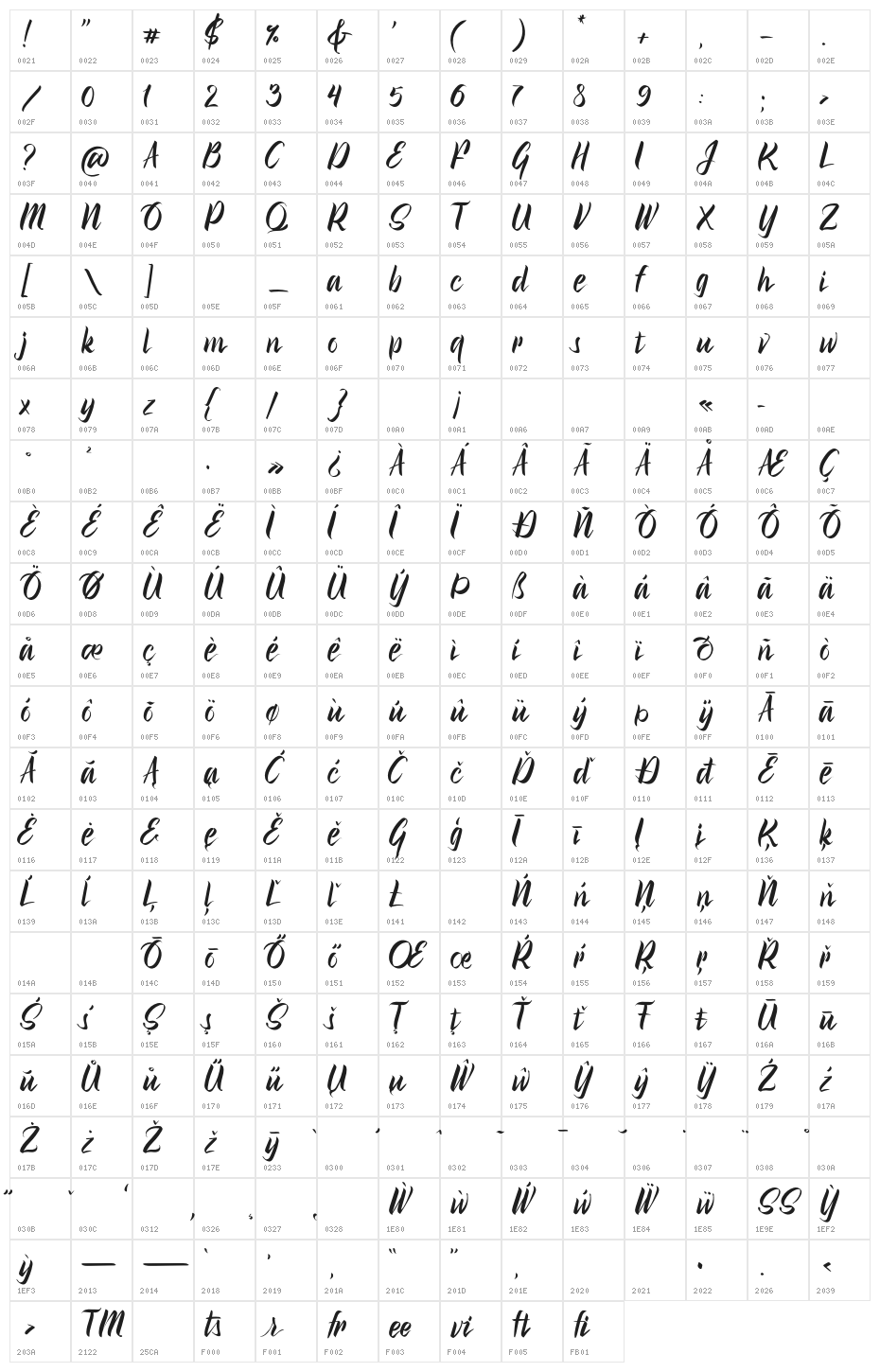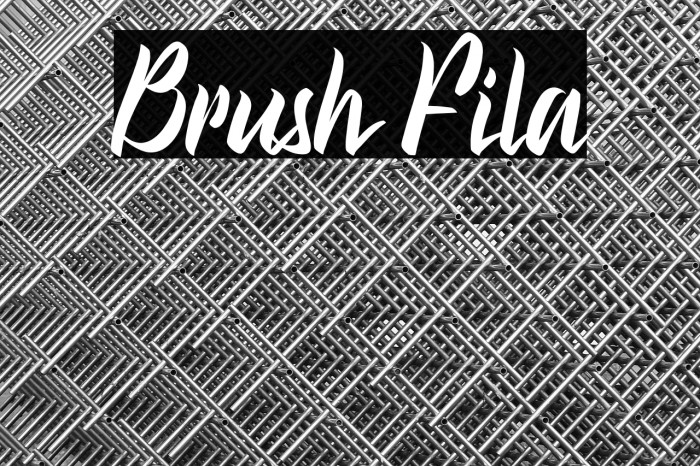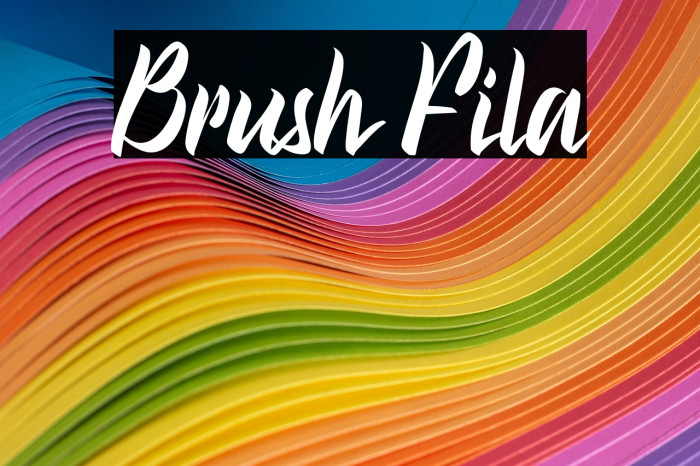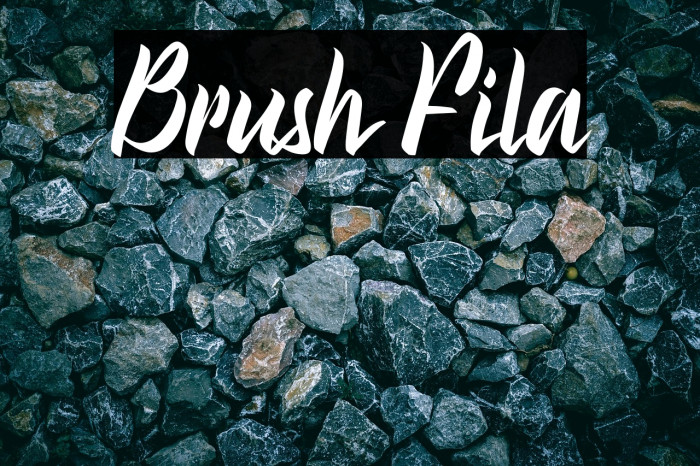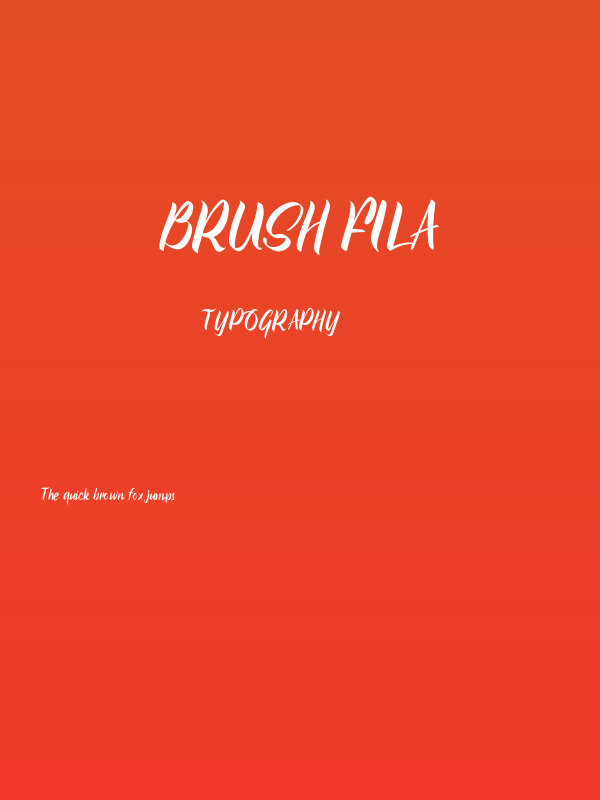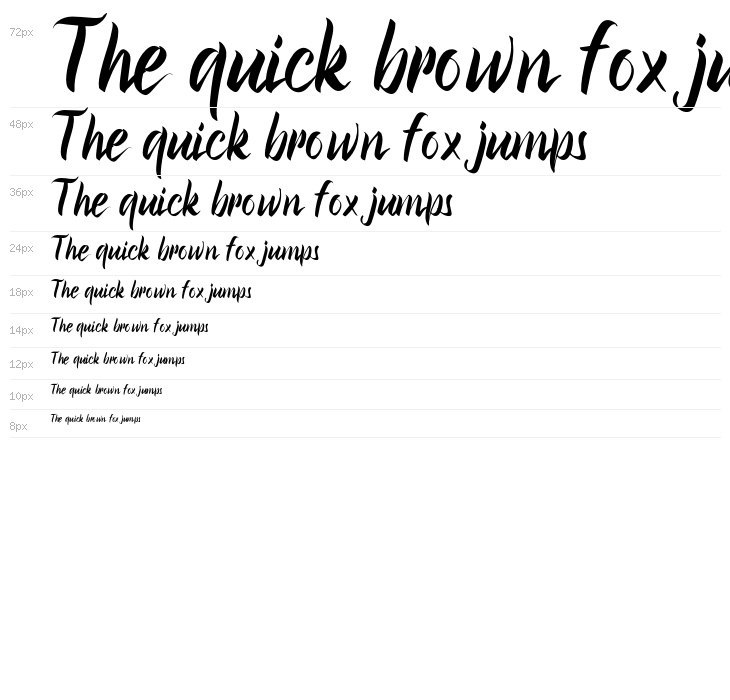
Brush Fila Font
Brush Fila Description
This font features a dynamic and expressive brush script style, characterized by its fluid and flowing strokes. The letters exhibit a sense of motion and energy, with varying stroke widths that create a lively and artistic appearance. The uppercase letters are bold and prominent, while the lowercase letters maintain a cohesive and harmonious flow. The numerals and special characters are crafted with the same attention to detail, ensuring consistency across the entire typeface. This font's handcrafted feel makes it ideal for projects that require a personal and creative touch.
Use CaseLogos, Headlines, Invitations
Proposed ProjectsIdeal for branding, invitations, posters, and any design requiring a personal, artistic touch.